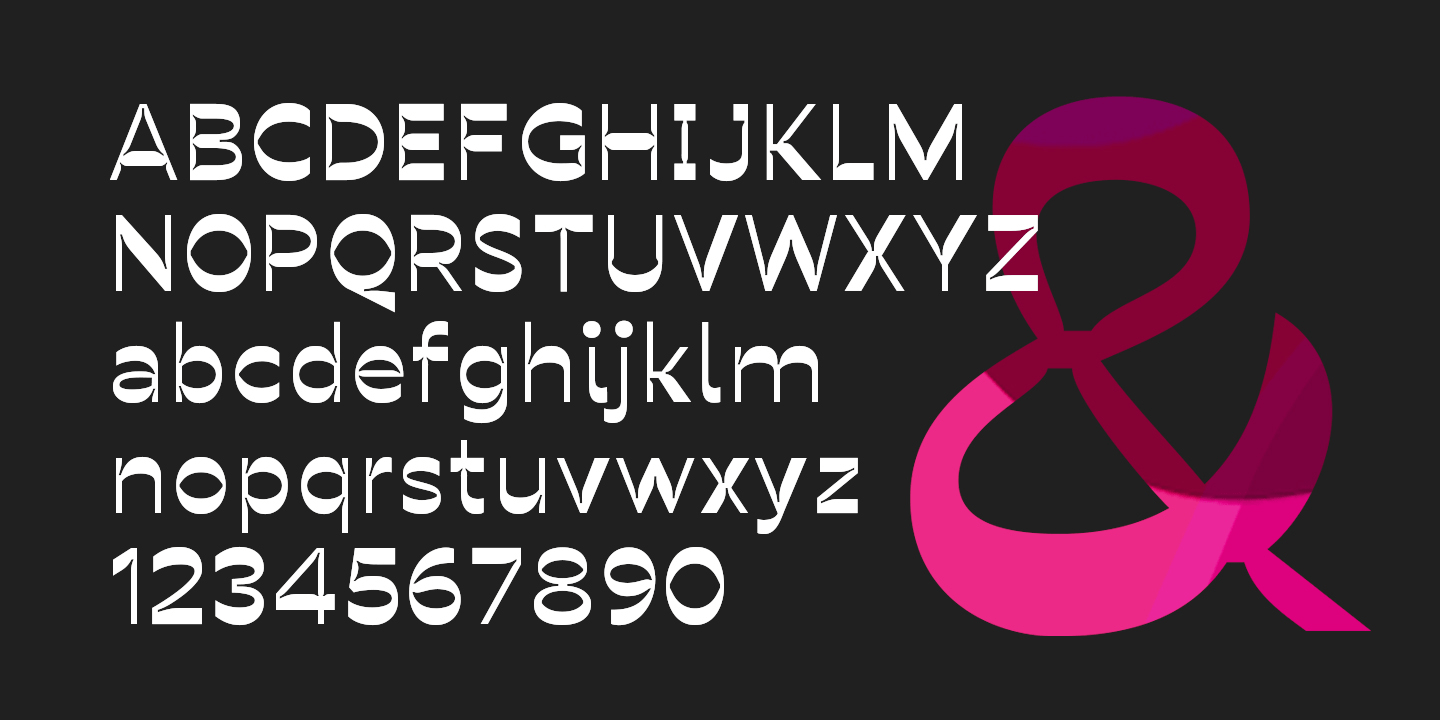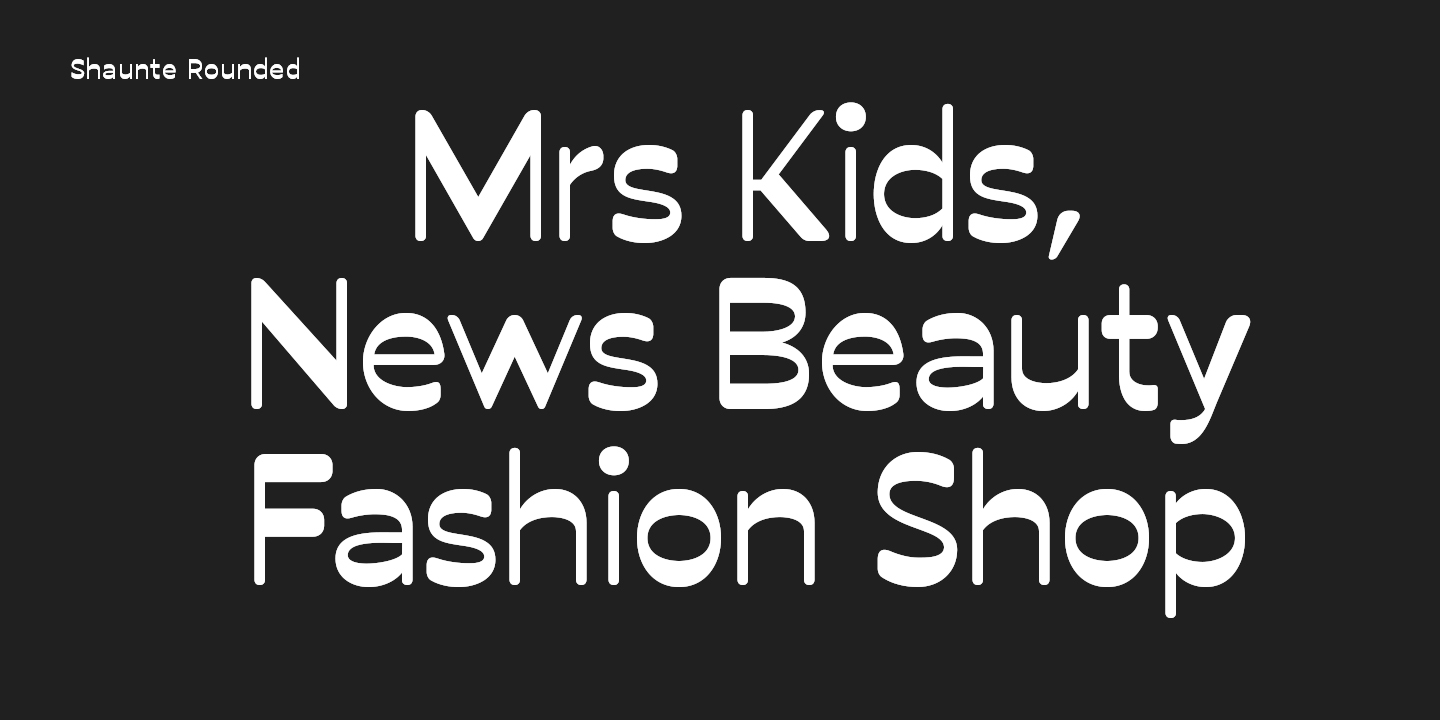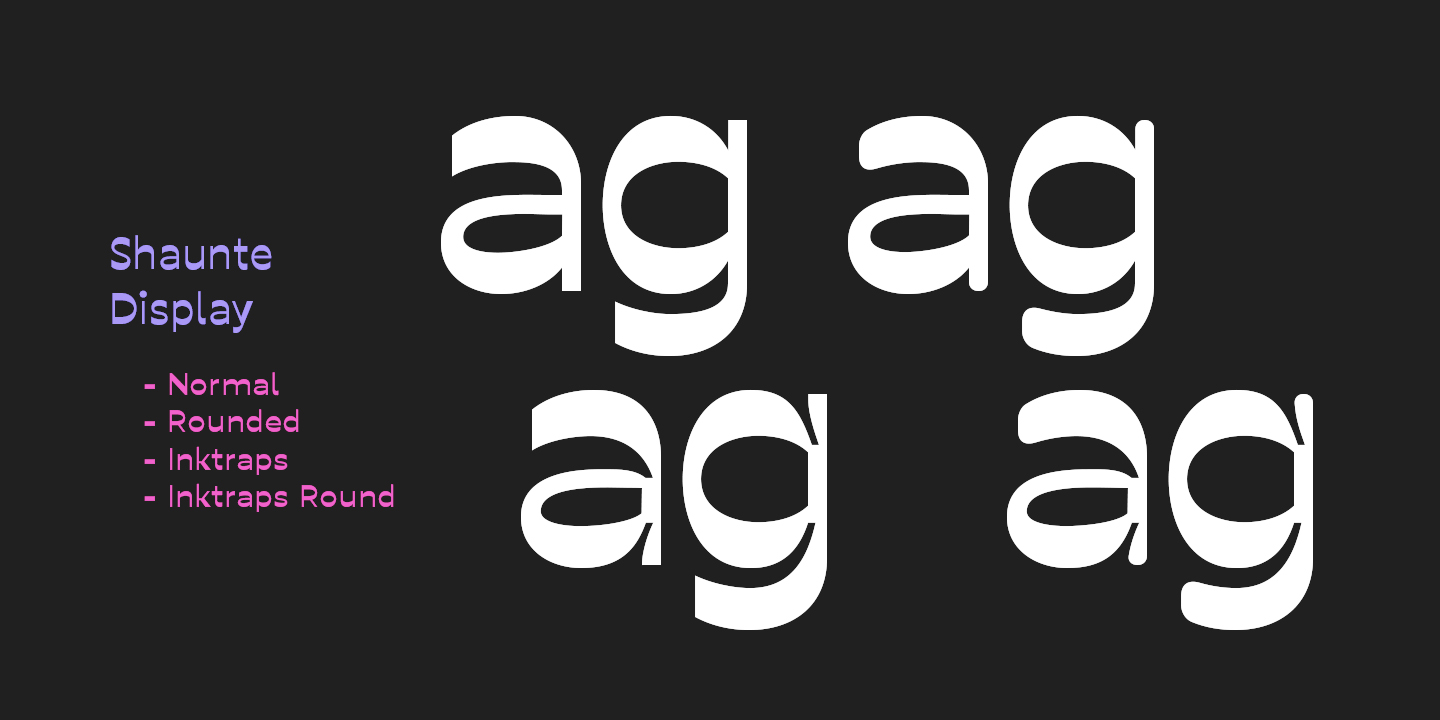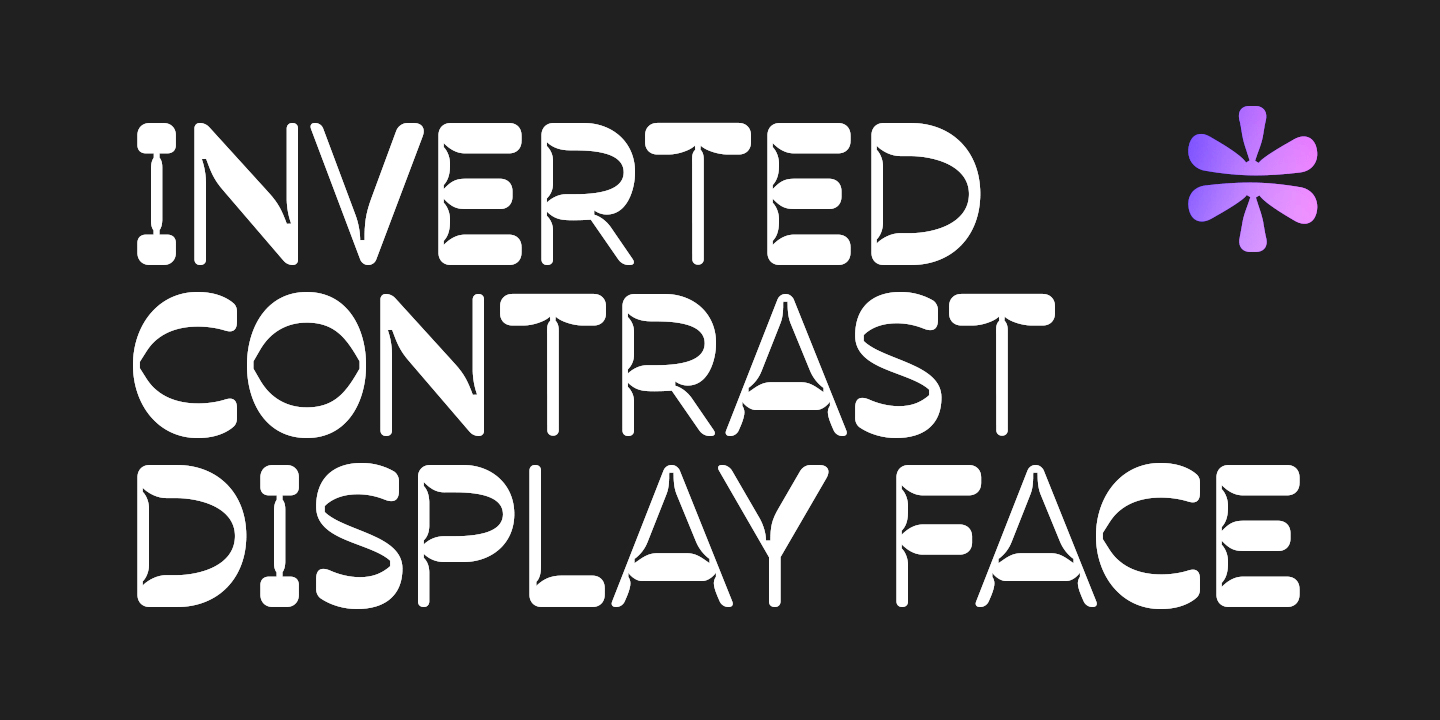
Shaunte is eye-catching display bold typeface that comes in four styles: normal, inktraps, rounded, inktraps rounded. A display sans-serif with an inverted or reverse contrast, its imperfections keep it casual while still providing legibility. Shaunte…